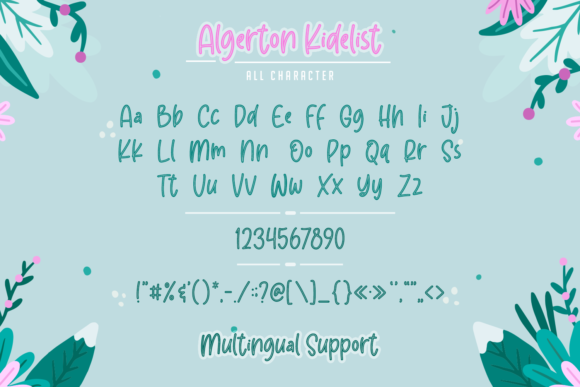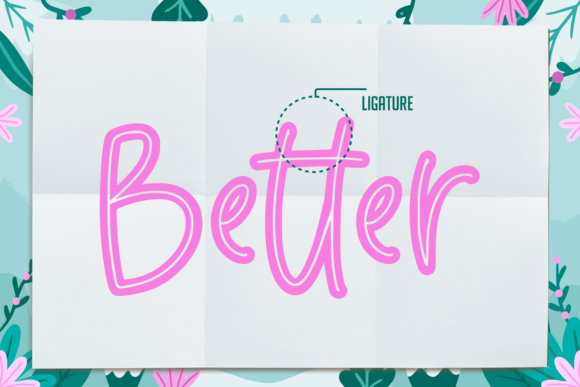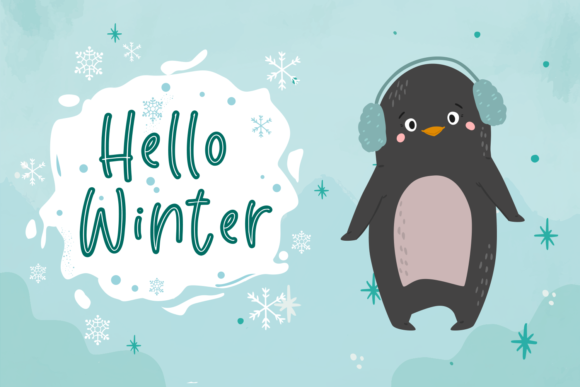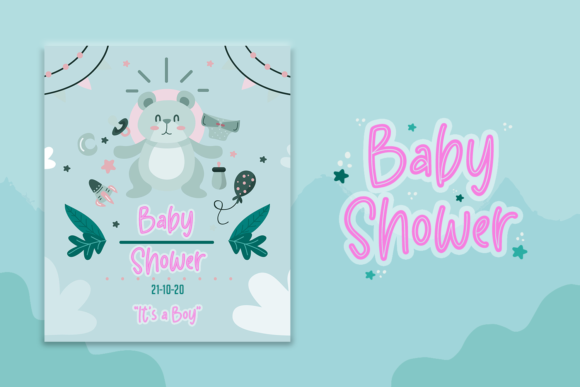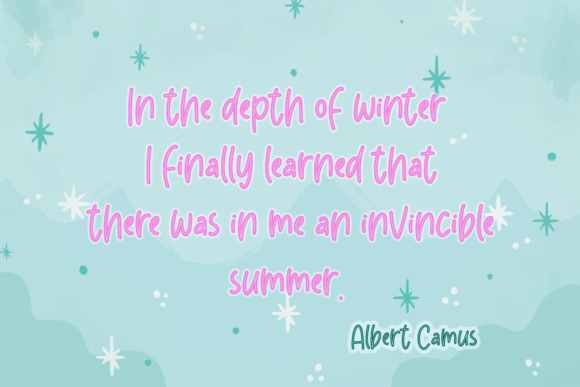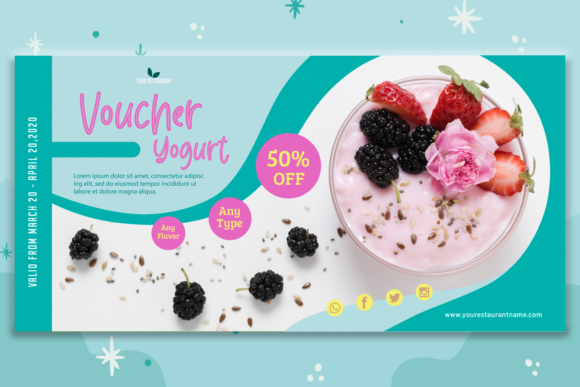
The Perfect Font to Elevate Your Designs
Remember that moment when you stumbled upon the perfect font to bring your design project to life? It’s a feeling of excitement and relief all at once, isn’t it? The search is over, and your creativity can finally shine through.
Enter the Algerton Kidelist Font, a playful, thin, and neat display font designed to take your design ideas to the next level. This smooth and modern font is perfect for adding a touch of sophistication to your branding, advertising, or digital media projects. Whether you’re a seasoned designer or just starting out, the Algerton Kidelist Font is a valuable addition to your toolkit.
With its versatility and stylish appeal, the Algerton Kidelist Font is sure to level up your designs and leave a lasting impression on your audience.
Algerton Kidelist Font Key Features
- Font Family: Algerton Kidelist, a unique, handwritten script font.
- Unique Characteristics: Features a mix of elegant and playful elements, making it suitable for a wide range of applications, from wedding invitations to children’s books.
- Language Support: Supports over 200 languages, including Latin, Cyrillic, and Greek scripts, making it a great choice for multilingual designs.
Algerton Kidelist Font Review
As a designer, I was excited to dive into the Algerton Kidelist Font and see what it had to offer. Overall, I found it to be a unique and quirky addition to any design project.
- The font’s playful, handwritten feel is perfect for adding a touch of whimsy to a design. It’s great for titles, headings, and other text elements where a bit of personality is needed.
- The font’s variability in stroke width and letterform makes it feel highly customizable, allowing designers to tweak it to fit their specific needs.
- The font’s irregularities and imperfections may not be suitable for designs that require a high level of precision or consistency.
- The font’s small character set may limit its use in certain contexts, such as body text or large blocks of text.
- The font’s quirky feel may not be to everyone’s taste, and some designers may find it too distracting or overwhelming.
Overall, I think the Algerton Kidelist Font is a great choice for designers who want to add a bit of personality and whimsy to their work. While it may have some limitations, its unique feel and customization options make it a valuable addition to any design toolkit.